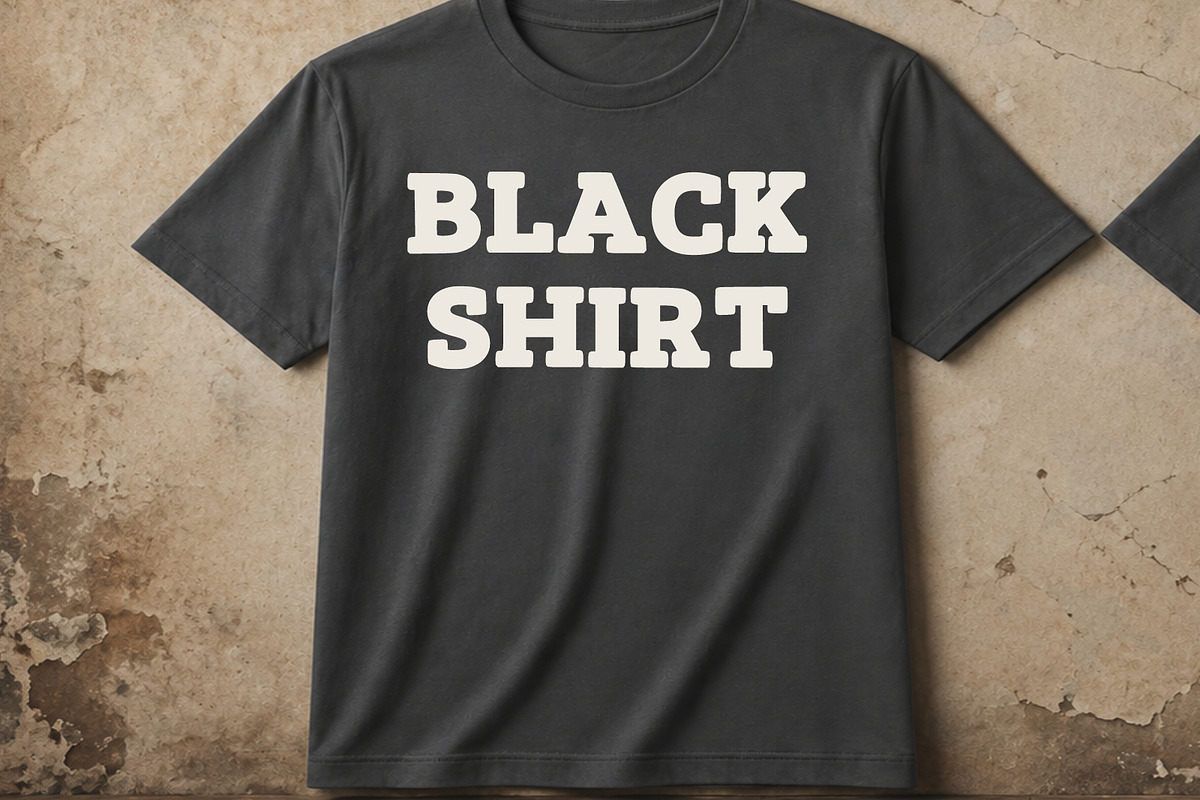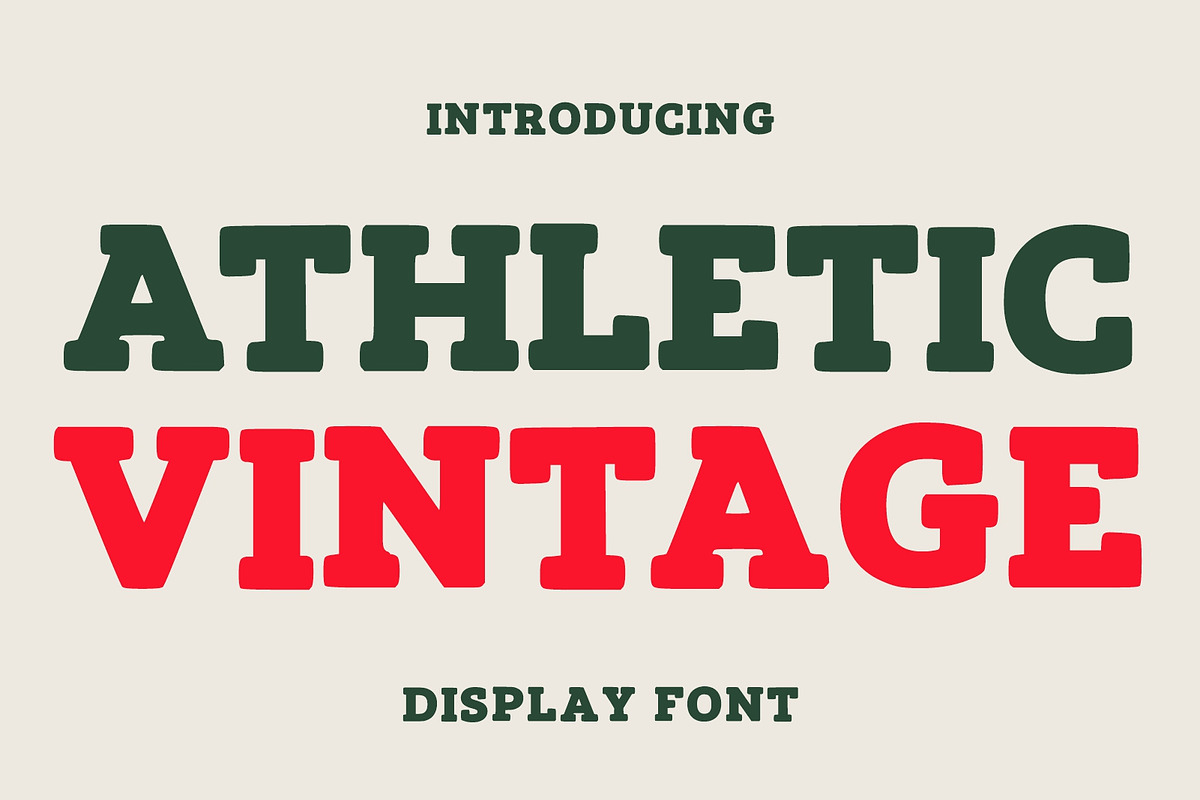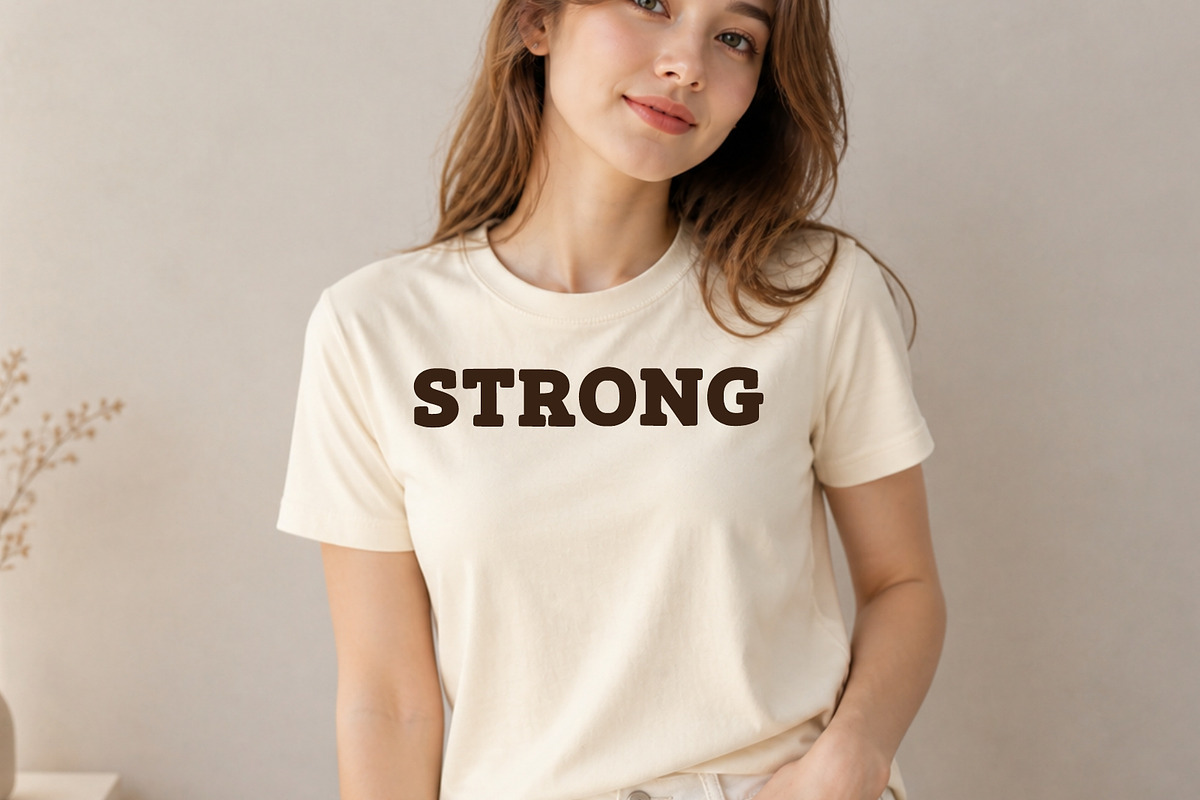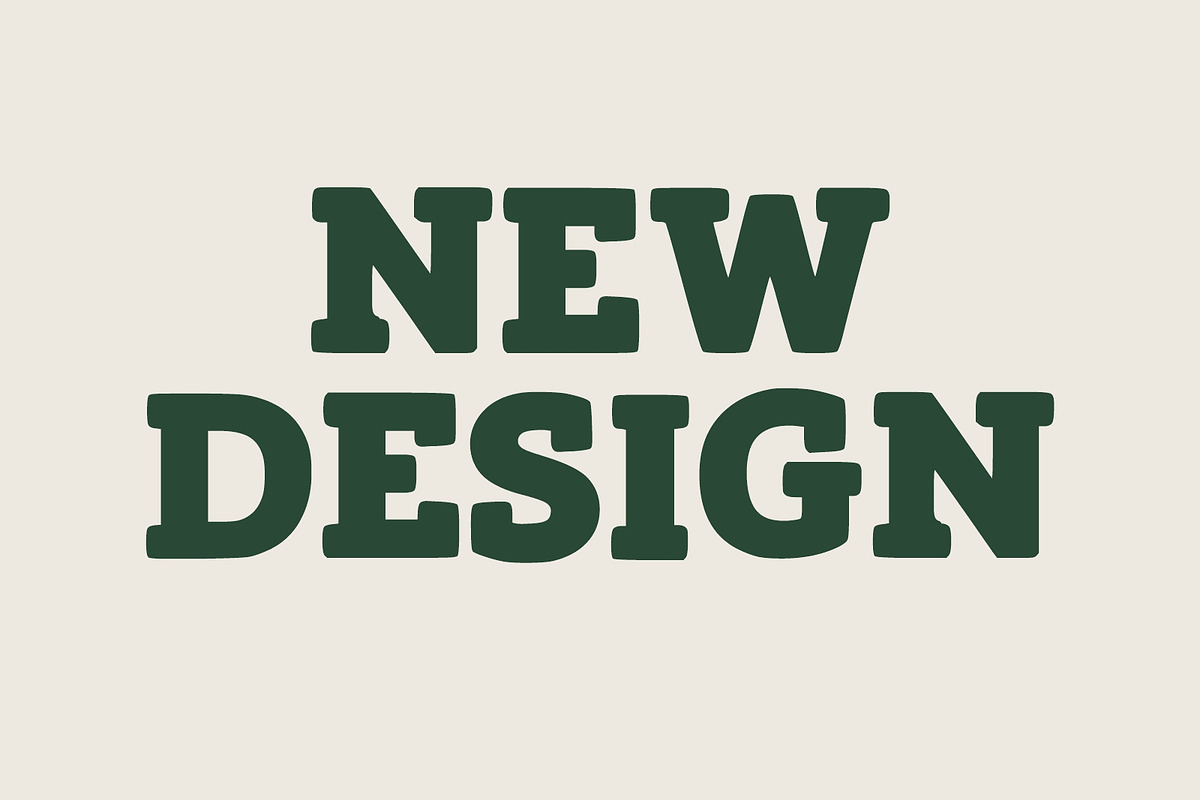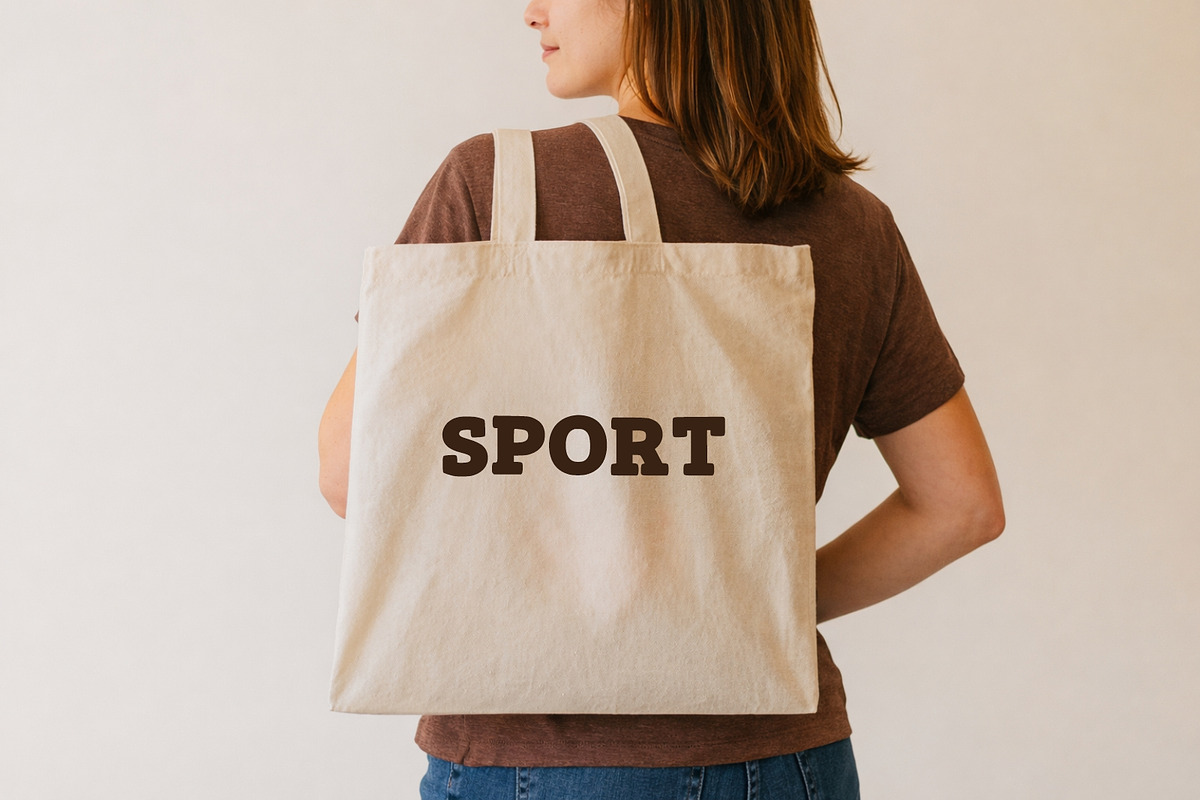
Athletic Vintage
Athletic Vintage is a bold retro display font inspired by classic sports typography and vintage collegiate lettering. Featuring strong slab-serif characters with a timeless athletic style, this font is perfect for logos, posters, t-shirt designs, branding, sports themes, packaging, headlines, labels, and retro-inspired creative projects. Its bold and clean appearance brings a nostalgic varsity feel to every design.